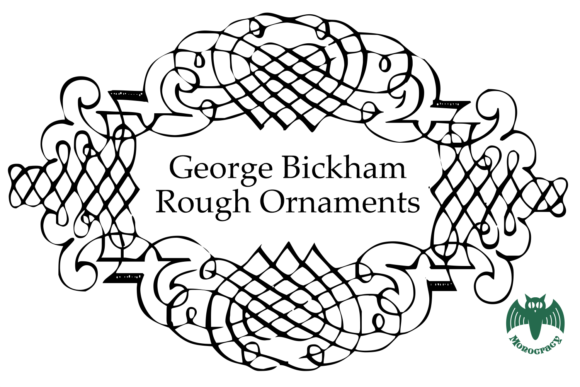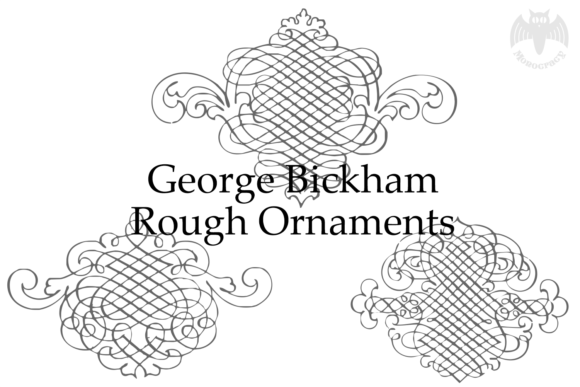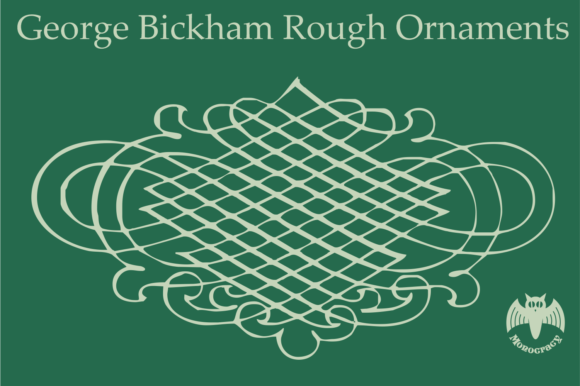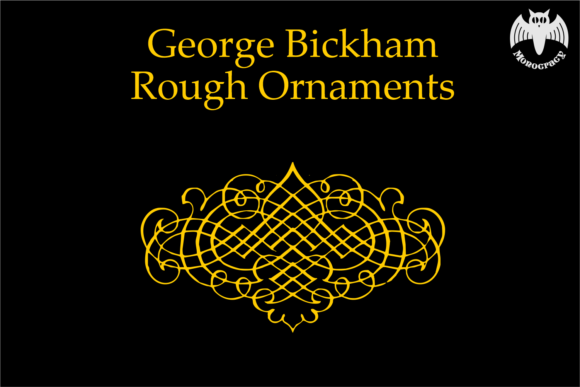
Unleash Your Creativity with the Timeless George Bickham Rough Ornaments Font
You’re staring at a blank page, and the cursor is taunting you. The blank slate is screaming for something – anything – to break the silence. That’s when you remember the little things that make design truly special: ornaments, flourishes, and the delicate touch that sets your work apart. In this moment, you’re on the hunt for the perfect font to elevate your creation, and that’s where the enchanting George Bickham Rough Ornaments Font comes into play.
This classic dingbats font is more than just a pretty face; it’s a masterclass in subtle elegance. With its delicate style and intricate details, the George Bickham Rough Ornaments Font is the perfect addition to any designer’s toolkit. Whether you’re crafting invitations, posters, or simply adding a touch of whimsy to a digital project, this font is sure to leave a lasting impression.
Key Features of George Bickham Rough Ornaments Font
- Font Family: George Bickham Rough Ornaments
- Character Count: 96 glyphs, including ornaments, symbols, and basic Latin characters
- Unique Characteristics: Features hand-drawn, distressed, and ornate elements, making it ideal for adding a vintage touch to designs
George Bickham Rough Ornaments Font Review
As a designer, I was excited to dive into the George Bickham Rough Ornaments Font. At first glance, it’s clear that this font is designed to evoke a sense of nostalgia and whimsy ✨. The rough, hand-drawn feel of the ornaments and the intricate details of the letters are reminiscent of traditional letterpress techniques.
Here are some aspects that work well:
- The font’s rough texture adds a unique touch to any design ✨.
- The ornaments are versatile and can be used to create a range of effects, from subtle to dramatic.
- The font’s vintage feel makes it perfect for designs that require a classic, nostalgic look.
- The font may not be suitable for designs that require a high level of precision or accuracy ⚠️.
- The rough texture can be overwhelming if used extensively, so it’s best to use it sparingly.
Overall, I’m impressed with the George Bickham Rough Ornaments Font. It’s a great addition to any designer’s toolkit, especially for projects that require a touch of whimsy and nostalgia. With some careful planning and use, this font can add a unique and eye-catching element to any design.
The George Bickham Rough Ornaments font is ideal for creating vintage-inspired designs, invitations, and greeting cards. To get the most out of this font, try combining it with other distressed or ornate fonts to create a unique visual effect.
Some common use cases for this font include:
- Vintage-inspired posters and prints